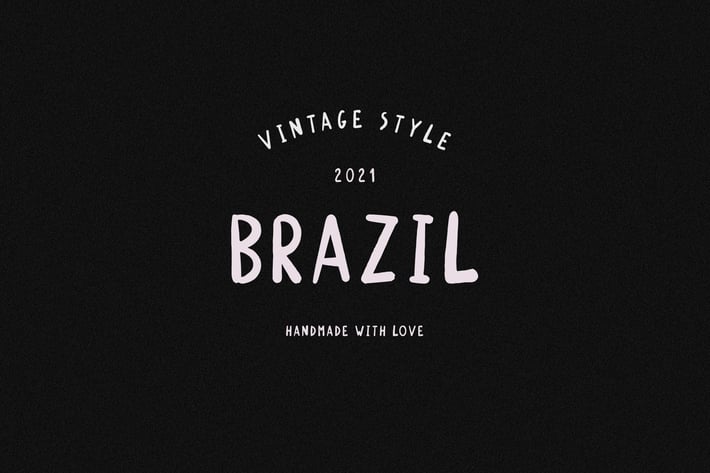
Brazil - Handwritten Font
Brazil Handwritten Font - will be perfect for books, greeting cards, logos, posters or anything that requires a fun and happiness look!